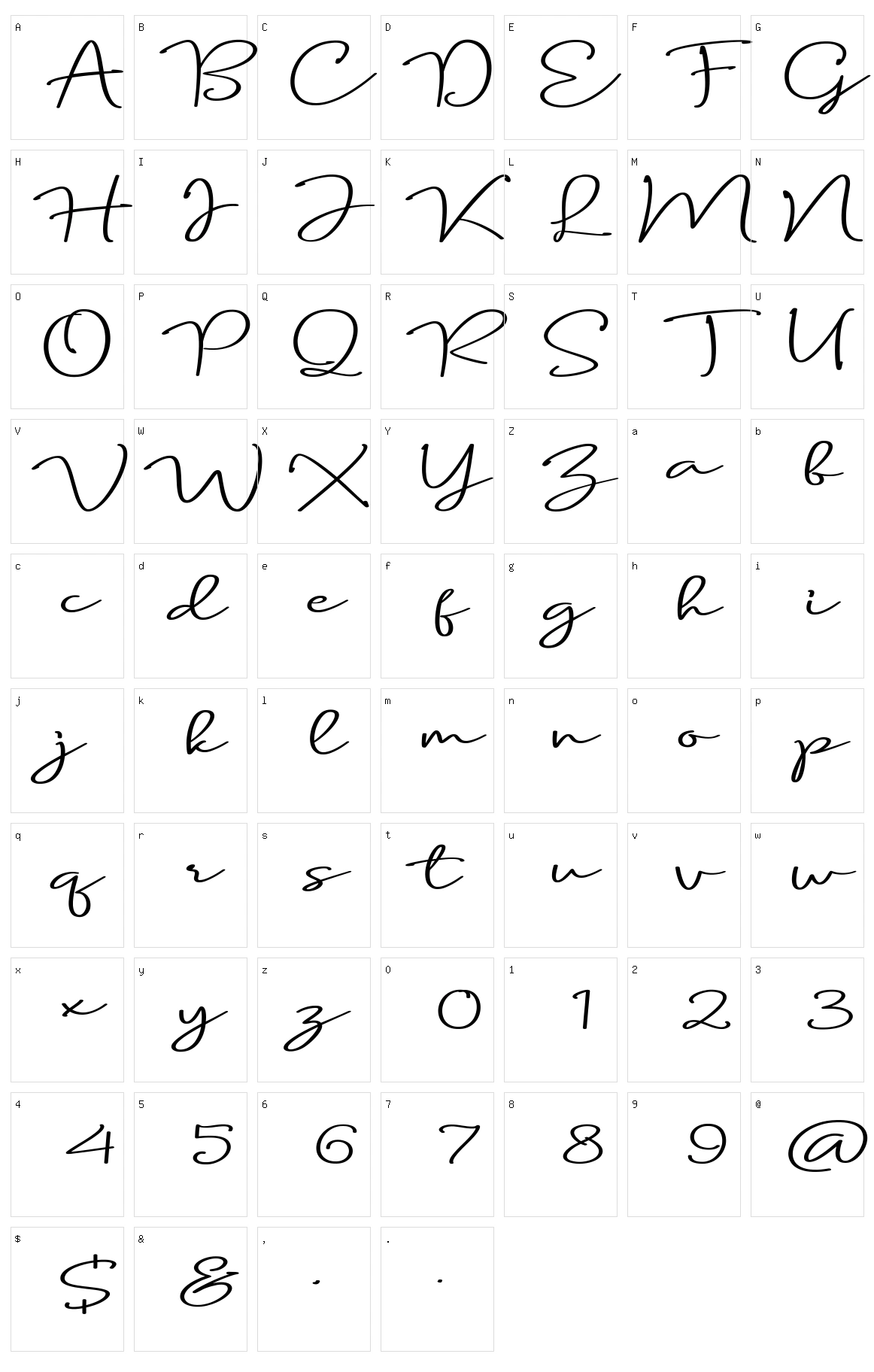
The free font Carolline is carefully designed by alifirman, showcasing a thoughtful balance of creativity and usability and falls under the Script font style. When you download the ZIP file, it contains only 21.68 KB of font files, making it lightweight and quick to download. Please review the license details below to understand permitted usage and distribution rights. If license information is not available, we recommend using this font for personal projects only or contacting the author directly for commercial usage permissions.